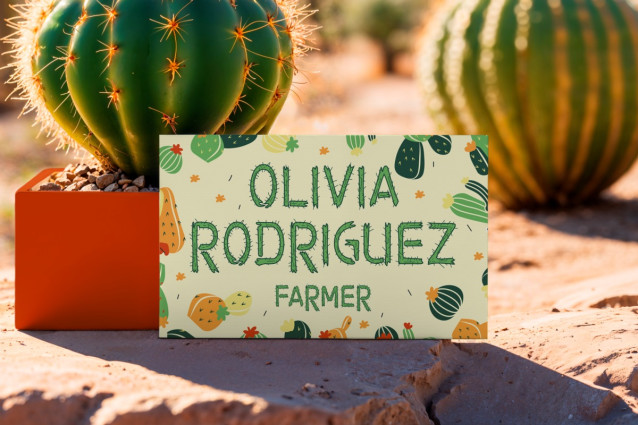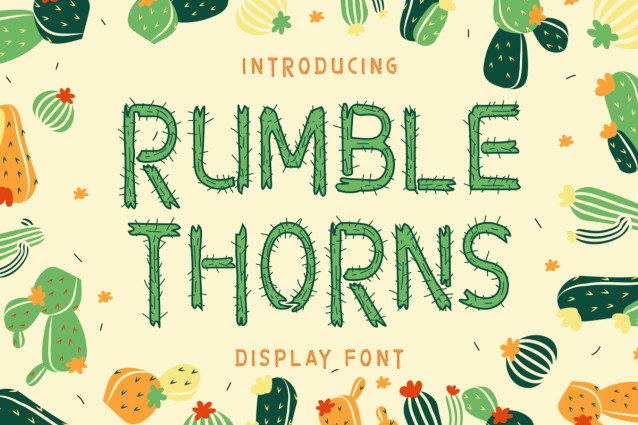
Rumble Thorns Font
Rumble Thorns Font is a delightfully quirky cactus-inspired display font that brings the spirit of the desert to life. Each character is crafted with sharp, lively spikes that emulate real cactus thorns, giving the font a playful yet rugged charm. The bold strokes and hand-drawn textures offer a whimsical feel, making it ideal for standout titles and decorative designs. From posters to business cards, this font adds personality wherever it’s used. The layout, paired with vibrant illustrations and succulent backgrounds, enhances its desert-themed aesthetic and supports its versatile usability across branding, packaging, and social campaigns.
Designed for designers and creatives seeking something unique and thematic, Rumble Thorns perfectly embodies the balance between nature and creativity. The uppercase and lowercase letters are harmoniously designed to be legible while retaining a fun aesthetic. With a full character set, including numbers and punctuation, this font works beautifully in children’s book covers, eco-conscious branding, handmade product labels, or DIY printables. Let your projects bloom with the unmistakable style of Rumble Thorns.